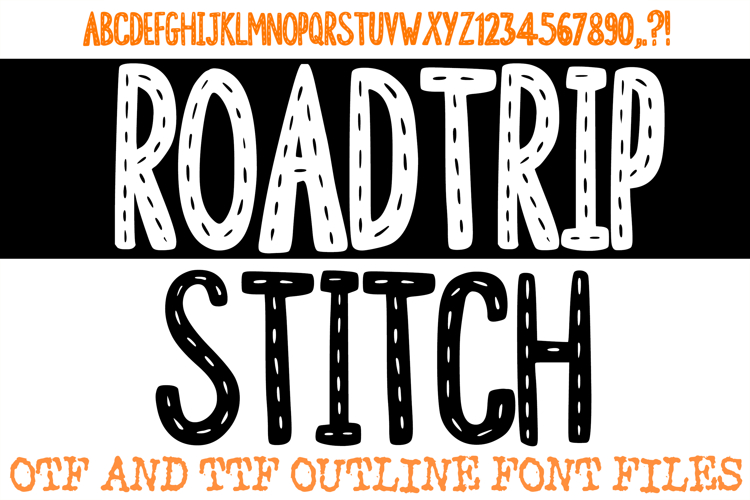
Roadtrip Stitch Alphabet Lettering Font Sewing ABC OTF
Embrace the spirit of adventure and hand-crafted charm with the Roadtrip Stitch Font. This delightfully playful display typeface features bold, hand-drawn outlines split right down the middle by a distinct dashed centerline. Perfectly bridging two worlds, the design captures both the look of painted highway lanes on an open road and the cozy appearance of a classic running embroidery stitch. Its friendly, casual geometry makes it an incredibly eye-catching choice for layouts that need a warm, inviting, and modern look.
Delivered as an installable typeface, this double-lined outline structure offers endless creative possibilities. It is an exceptional resource for a designer who wants to add vibrant color fills between the lines, play with textured background layers, or apply drop shadows. The clean, crisp line art scales beautifully across all creative design software for flawless digital projects and physical prints.